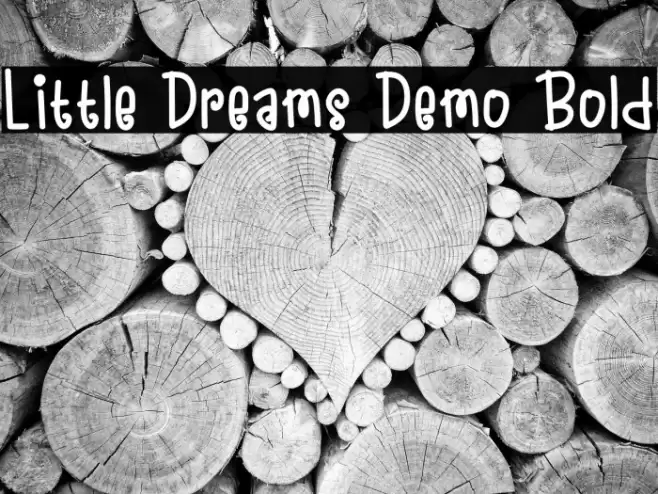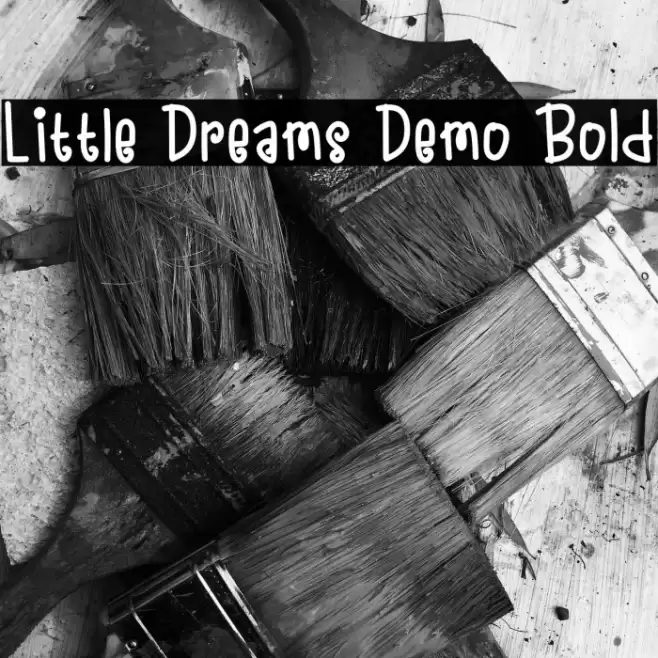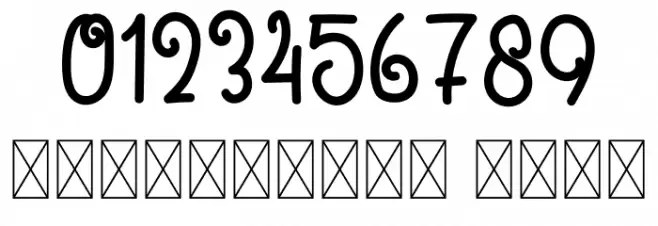
Little Dreams Demo Bold Font
Little Dreams Demo Bold Description
This playful and whimsical font features a bold and rounded style with a hand-drawn appearance. The characters are slightly irregular, adding a charming and informal touch. The uppercase and lowercase letters maintain a consistent style, with some letters featuring unique loops and curls that enhance the font's playful nature. The numbers are equally bold and rounded, fitting seamlessly with the overall design. This font is ideal for projects that require a fun and friendly aesthetic, such as children's books, greeting cards, or playful branding.
A bold, playful, and hand-drawn font with rounded, whimsical characters from Uncategorized fonts.
- Proposed Projects: Ideal for children's books, playful branding, greeting cards, and creative projects.
- Overall Style: Playful
- Use Case: Headlines, Logos, Decorative text